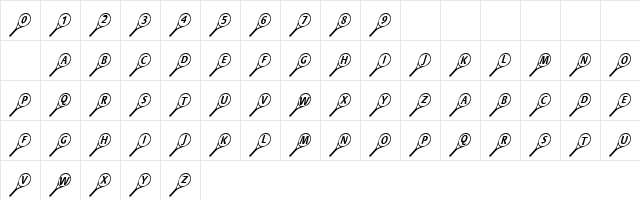
101! Tennis Club Regular Font Preview
101! Tennis Club Regular
Design Context for 101! Tennis Club Typeface
101! Tennis Club is a composed and adaptable typeface that performs quietly and consistently across a wide range of design contexts.